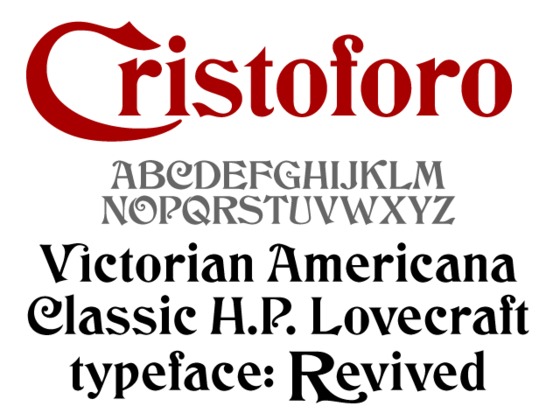
Reviving a Victorian-American Typeface
Today's Fonts on Friday is a little bit different: we're letting you know about a Kickstarter project for a typeface design. Kickstarter, for those of you who may not know, is a way to get money for product development through what's called crowdfunding. Everyday people like you and me provide the funds to "kick start" an idea, product, service, and so on. The developer can only uses that money on the advertised project, and only when the financial goal is realized.
This project is the development of a typeface to be called "Cristoforo" by Thomas Phinney, type expert and "Guru of Fonts and Typography" at Extensis (perhaps you saw the case study we ran about his role in the redesign of the Extensis logo). Cristoforo, however, is an entirely personal project for Phinney, in which he combines his love of typography with his passion for the cult game Call of Cthulhu, a roleplaying game inspired by the horror writer H.P. Lovecraft.
Cristoforo is Victorian in style, with antecedents in the fonts Columbus and American Italic (the former is the font used in packaging for Cracker Jack popcorn candy).Phinney describes these fonts as "classic American-Victorian art nouveau metal types by Hermann Ihlenburg."
It looks like a fun project.